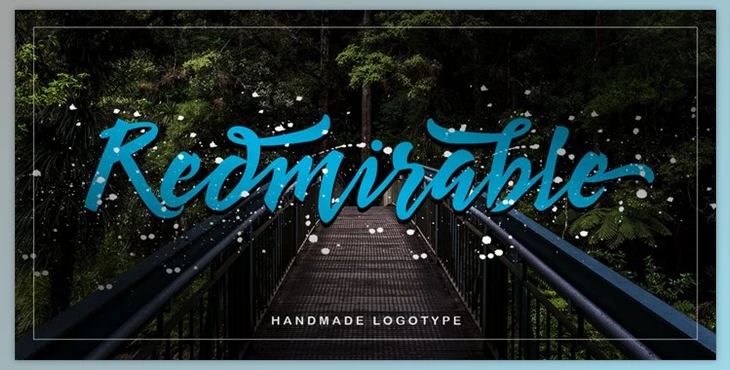
Redmirable Font Family – 2 Fonts:
Redmirable is a fresh modern, fresh, and contemporary font that has a calligraphy look. It is suitable for everything including promotional materials branding, logotype handwritten quotes, packaging and labels, signage as well as posters, newsletters merchandise, branding and other projects.